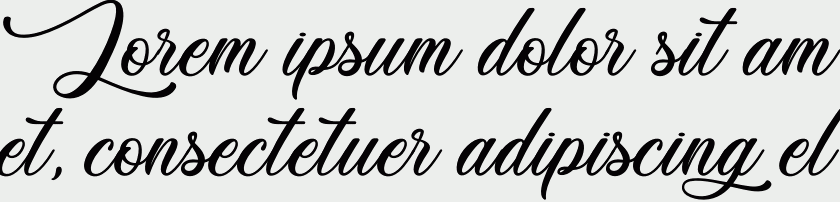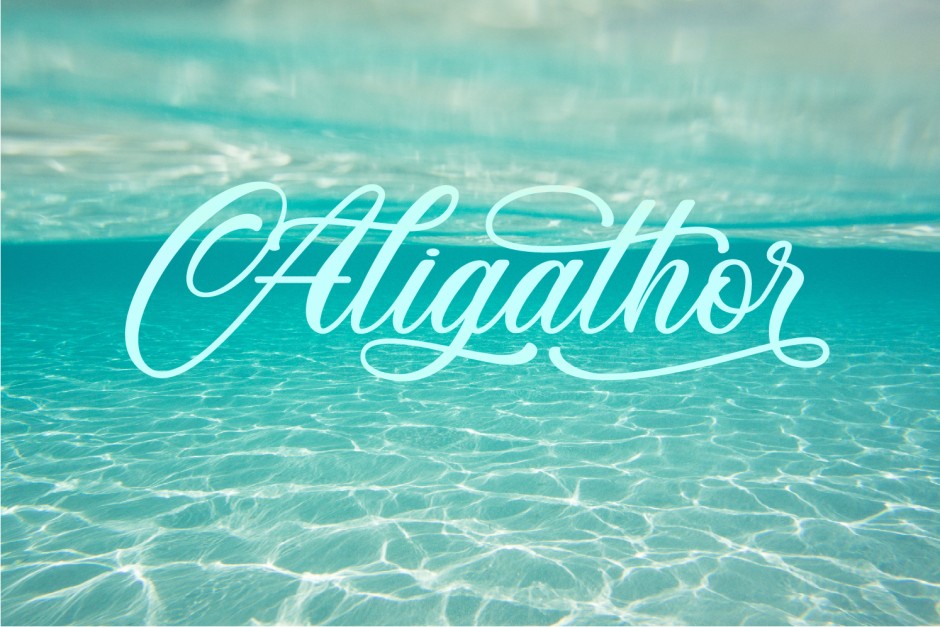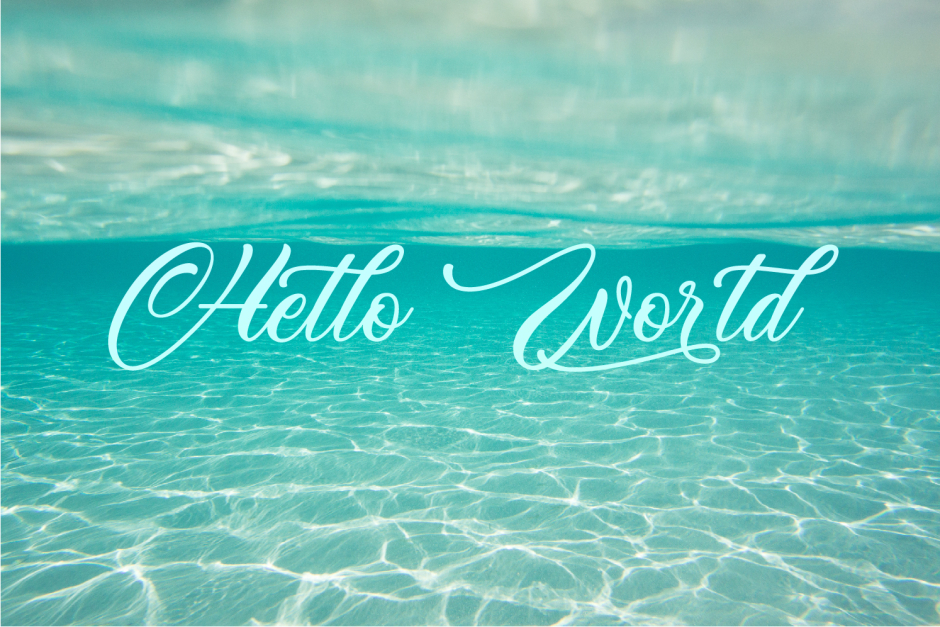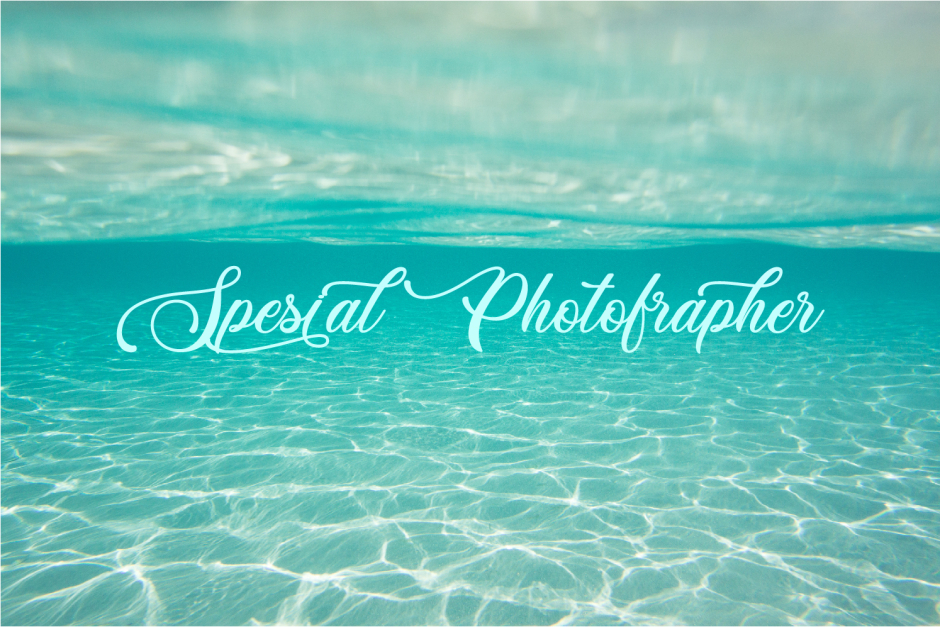
Aligathor
"Aligathor" is a font display comes with uppercase, lowercase, numerals, punctuations and so many variations on each character include OpenType alternates, common ligatures and also additional swash to let you customize your designs. Perfect to use for Logotype, Letterhead, Poster, Apparel Design, Label and etc.
OPENTYPE FEATURES
Swash
Standard Ligatures
Contextual Alternates
Stylistic Alternates
All Alternates